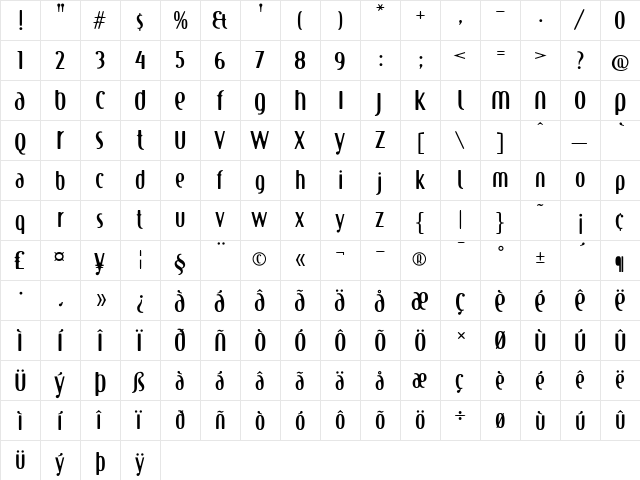
Eternity Regular
Design Context for Eternity Typeface
Eternity offers clean, dependable letterforms without strong stylistic allegiance, making it a practical choice for designers who need flexibility.
Pro Tip: Use Eternity in both headline and body roles to test its range before committing to a single application.